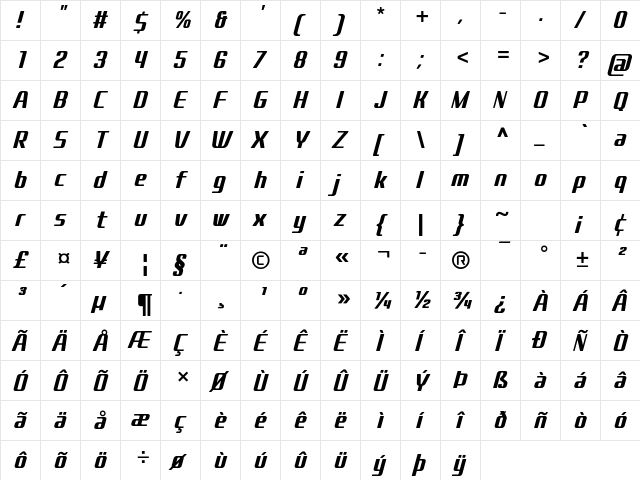
Kardust TS Condensed Demo Versi Bold Italic Font Preview
Design Context for Kardust TS Condensed Demo Versi Typeface
Kardust TS Condensed Demo Versi offers clean, dependable letterforms without strong stylistic allegiance, making it a practical choice for designers who need flexibility. Its italic angle brings a sense of urgency and motion to the letterforms. The heavy weight commands attention and anchors typographic hierarchies. Its narrow stance lets it pack a punch even in space-constrained designs.
Pro Tip: Use Kardust TS Condensed Demo Versi for emphasis, pull quotes, and subheadings where its slanted energy can add rhythm to the layout.